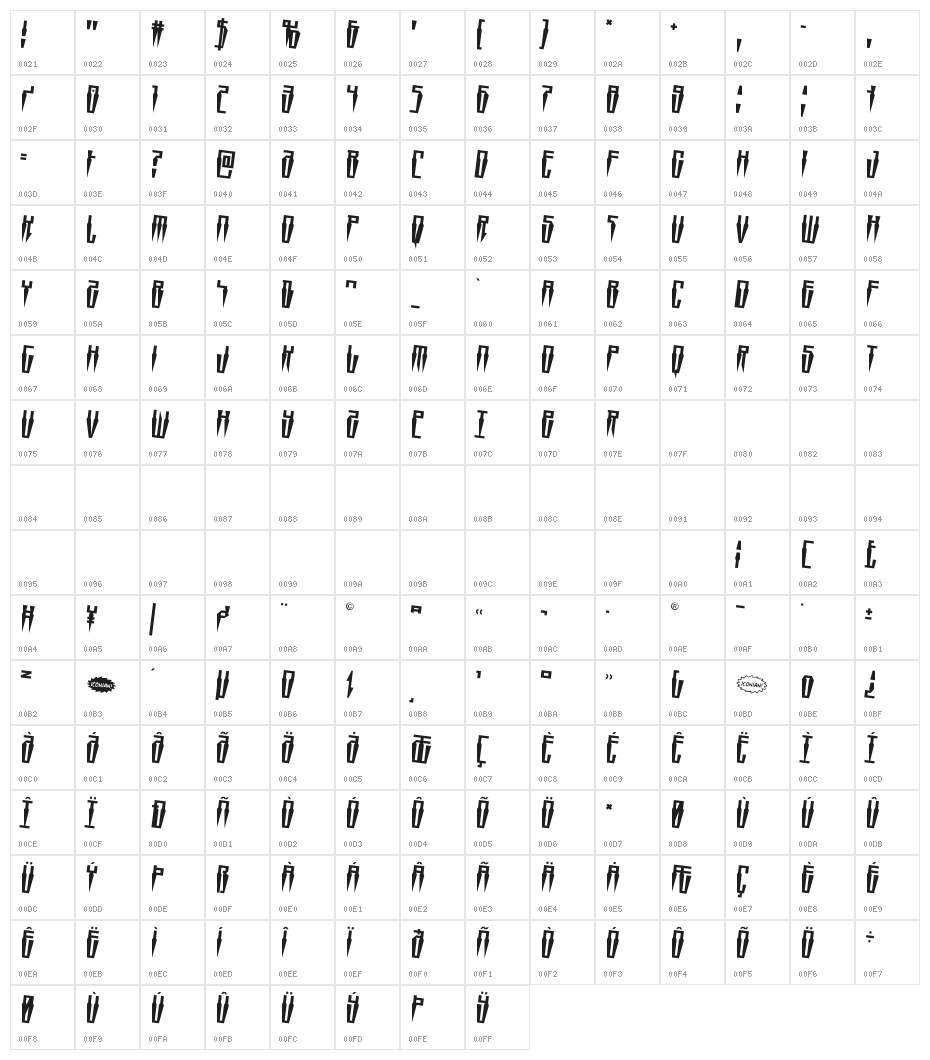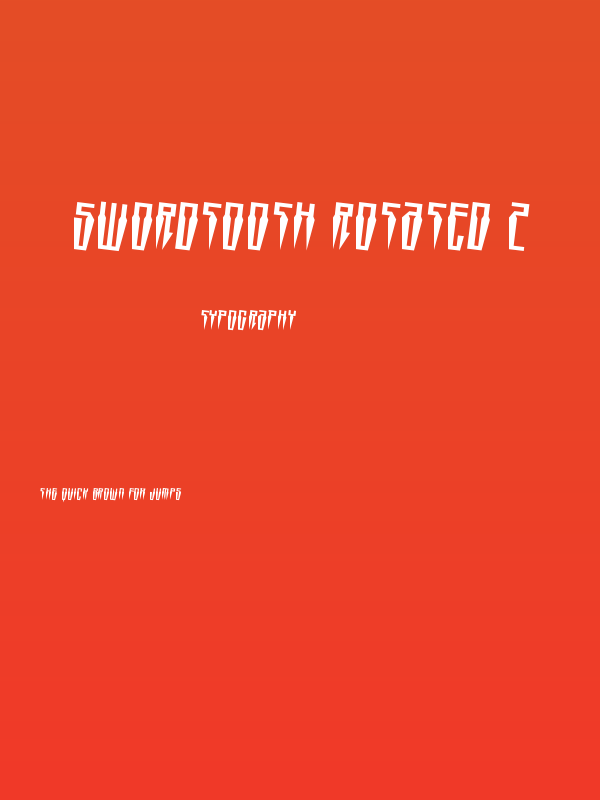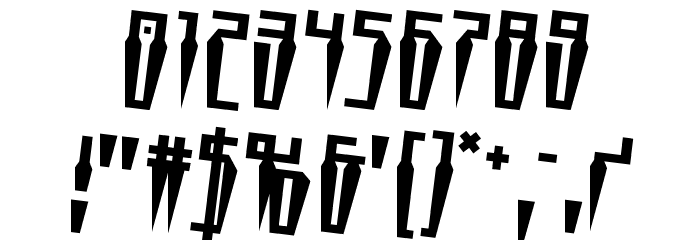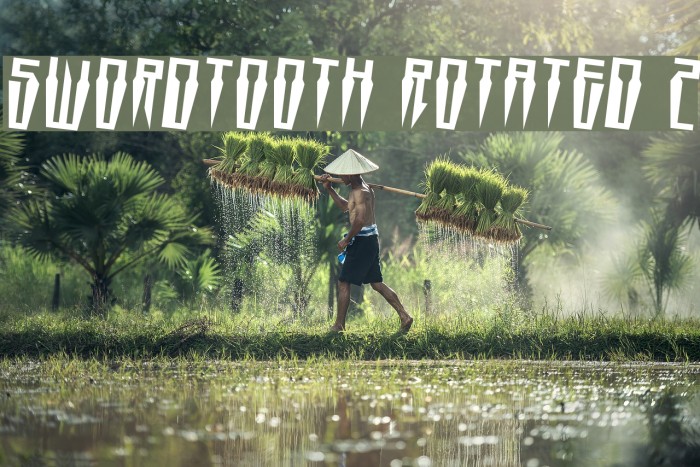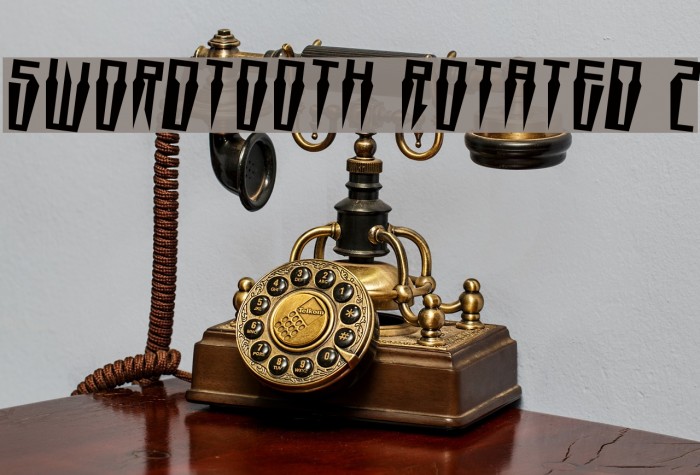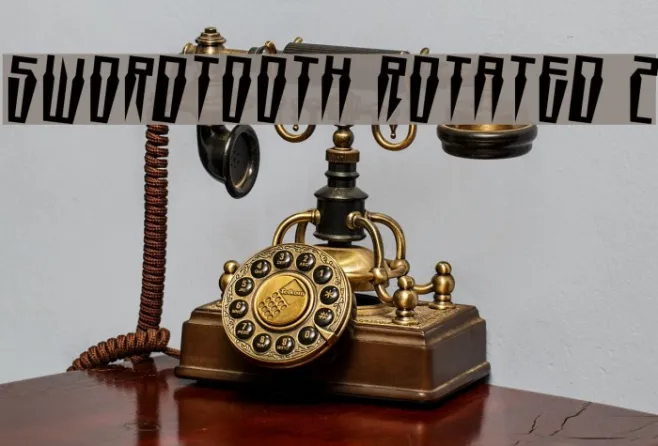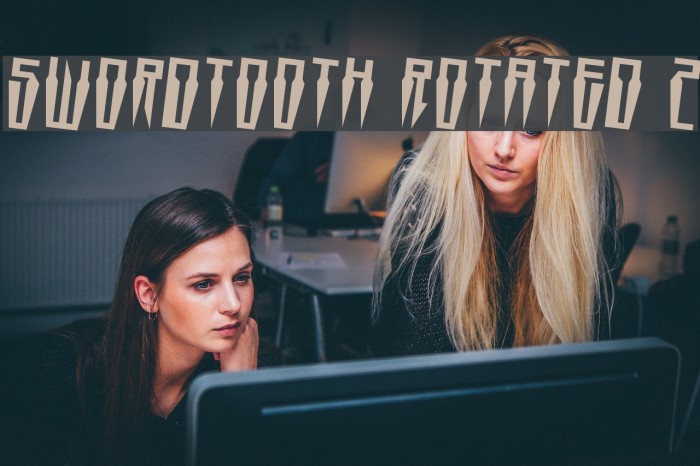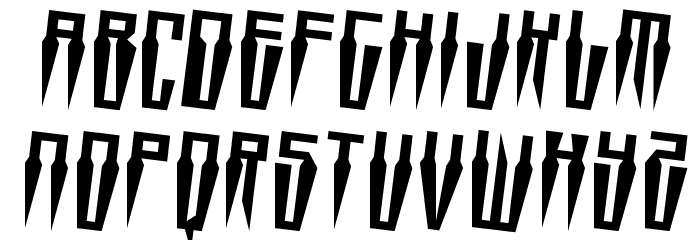
Swordtooth Rotated 2 Font
Swordtooth Rotated 2 Description
This font features a bold and aggressive design with sharp, angular edges and a distinct geometric style. The characters are heavily stylized, resembling blades or spikes, which gives them a dynamic and edgy appearance. The uppercase and lowercase letters maintain a consistent theme, with elongated vertical strokes and pointed terminals. The numbers and special characters follow the same design principles, ensuring uniformity across the typeface. This font's unique style makes it stand out, making it suitable for projects that require a strong visual impact.
| Overall Style | Modern, Edgy |
| Proposed Projects | Ideal for use in video game titles, movie posters, branding for extreme sports, or any project needing a bold, edgy aesthetic. |